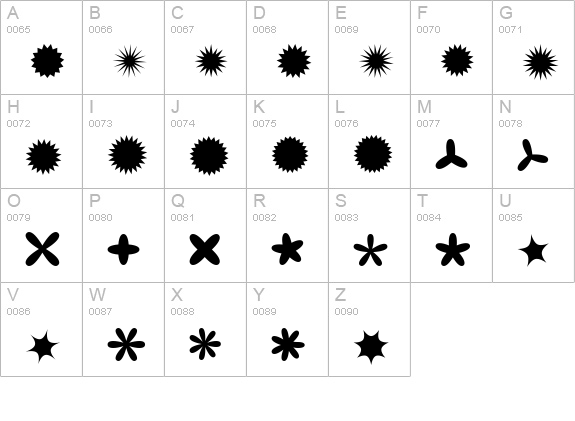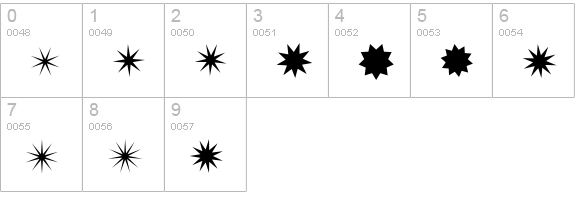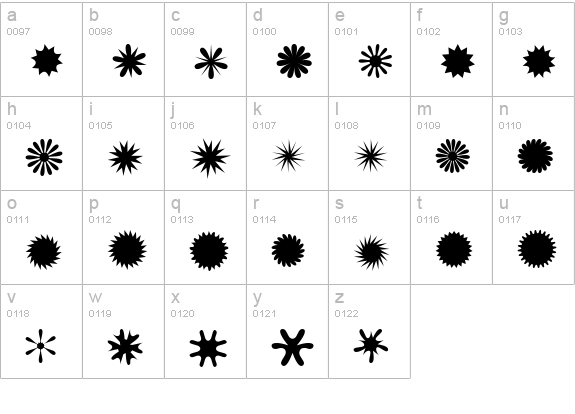
SternStella Night Font Details
SternStella Night font is a captivating and elegant typeface that exudes a sense of sophistication and charm. Its sleek and modern design makes it perfect for a wide range of projects, from branding to editorial design. The exquisite details of this font add a touch of luxury and class to any text. What sets SternStella Night font apart is its versatility and ability to elevate any design it is applied to. Whether used for headlines, body text, or signage, this font is sure to make a lasting impression. The best part about SternStella Night font is that it is completely free to download at FontsMarket.com. So, you can add this stunning font to your collection without any cost. Don't miss out on the opportunity to enhance your designs with this exceptional typeface.